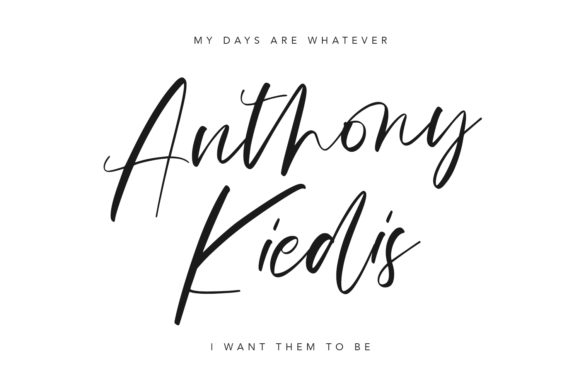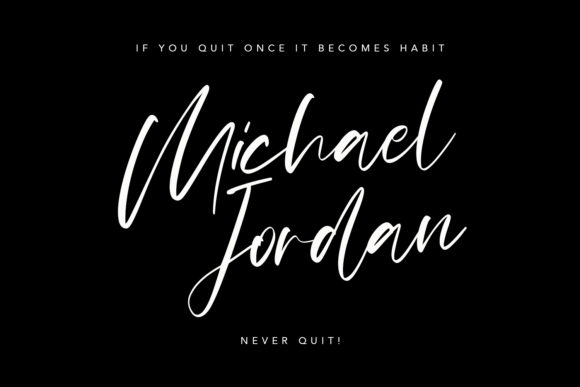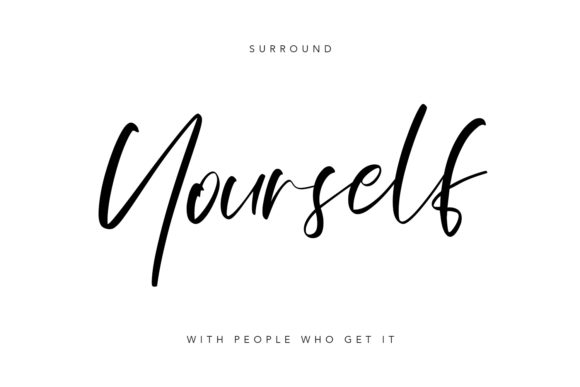
Introduction to Monalls Font
Monalls is a magical handwritten font carefully created with a touch of elegance.
It will elevate a wide range of design projects to the highest level, be it branding, headings, wedding designs, invitations, signatures, logos, labels, and much more .
Why Choose Monalls Font?
Monalls Font offers exceptional quality and versatility, making it a valuable addition to your design toolkit. Whether you’re creating for personal projects or commercial use, Monalls Font delivers professional results.